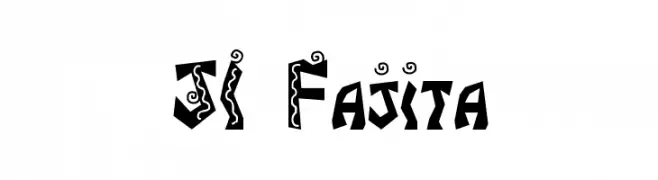
A whimsical, acorn-themed decorative font with uppercase letters.
A playful, balloon-themed font with bold, rounded characters and decorative strings.
A playful, bold font with rounded, chubby characters ideal for fun and engaging designs.
A playful, bold font with rounded, bubble-like characters and a 3D shadow effect.
A decorative font with intricate vine patterns within each character.
A playful, bold font with angular shapes and spiral patterns, perfect for creative projects.
A bold, playful font with quirky decorative elements and a lively style.
Ornamental dingbat font with kaleidoscopic mandala motifs.
Ornamental dingbat font with kaleidoscopic, geometric motifs.
A decorative font with intricate kaleidoscope-inspired geometric designs.